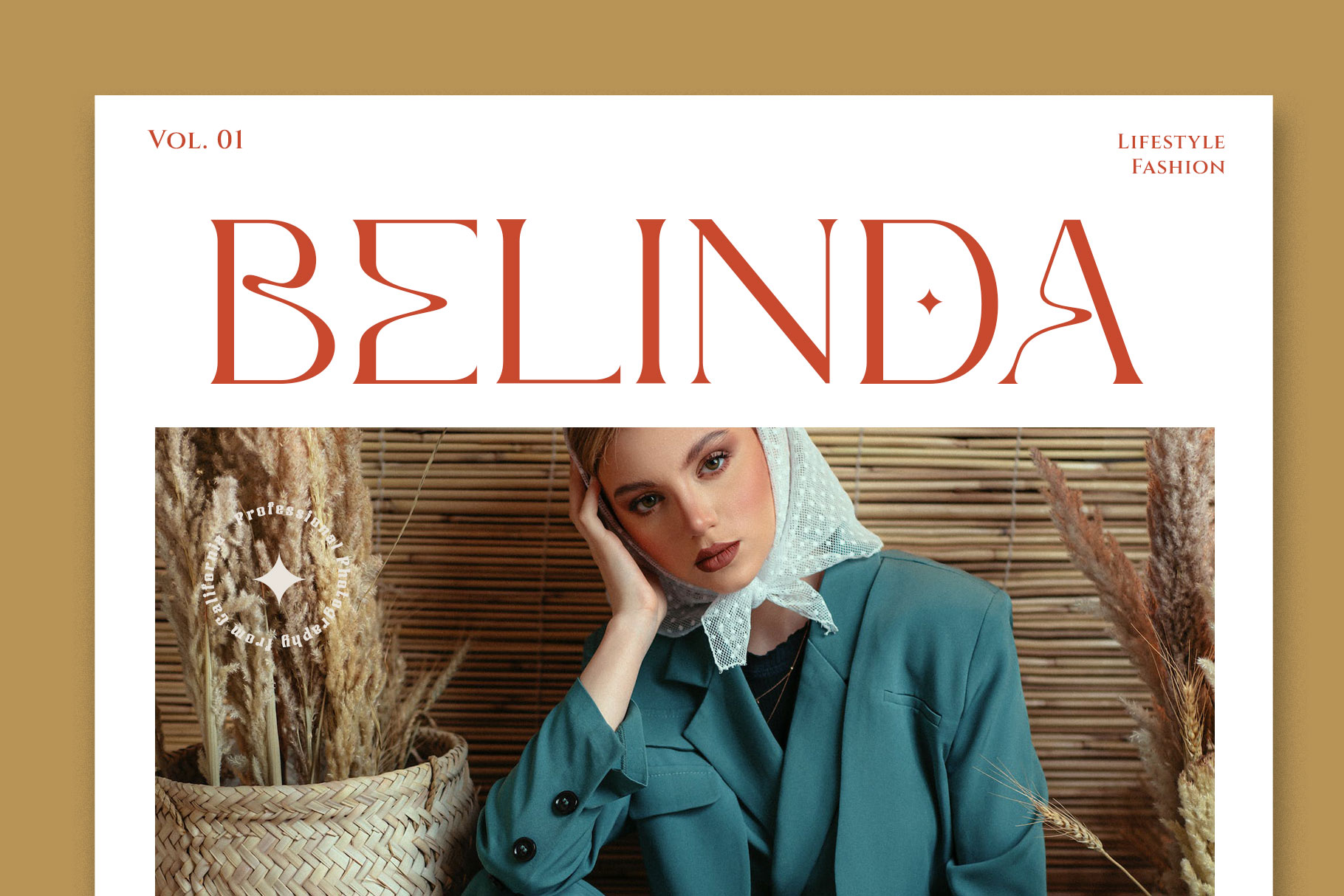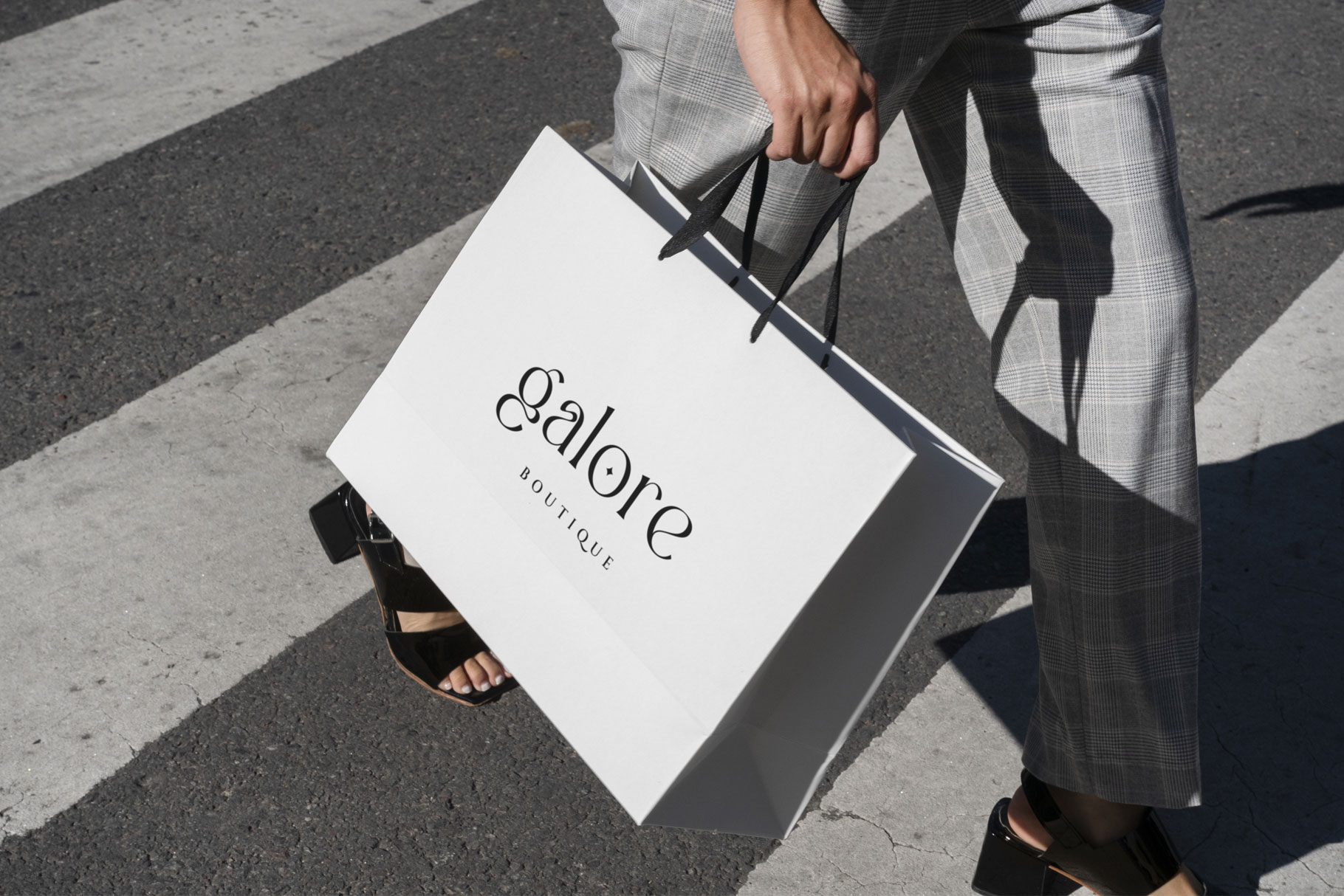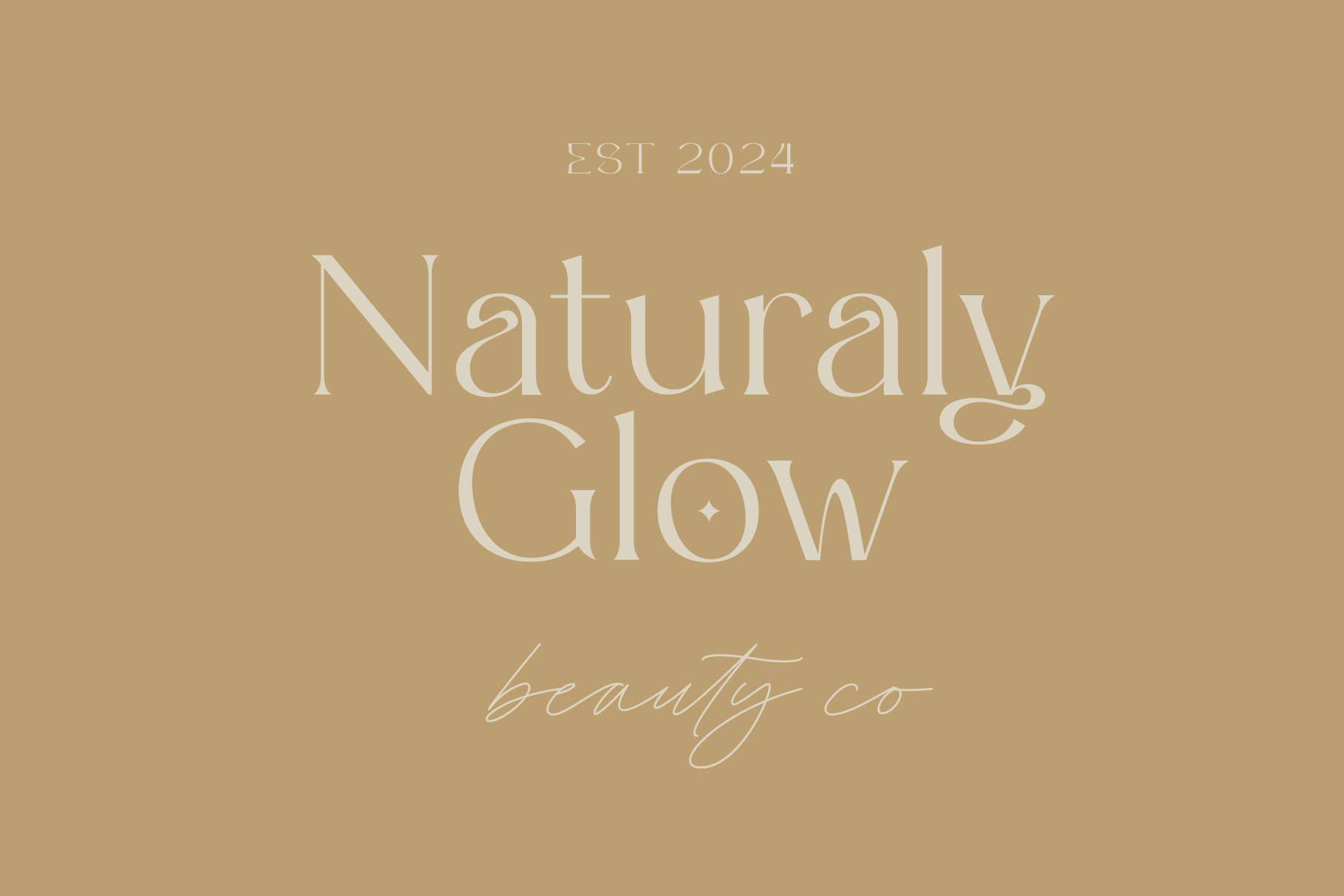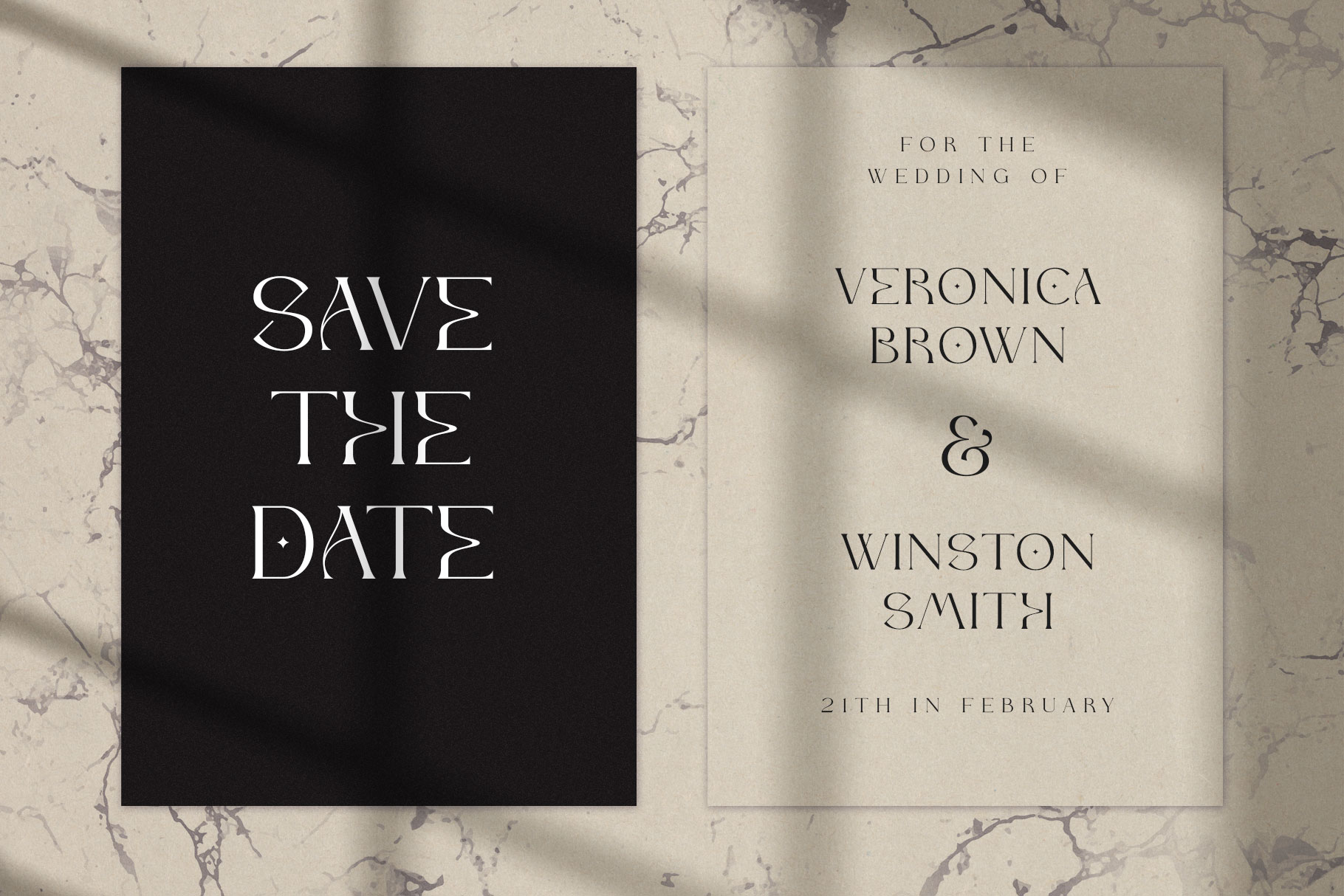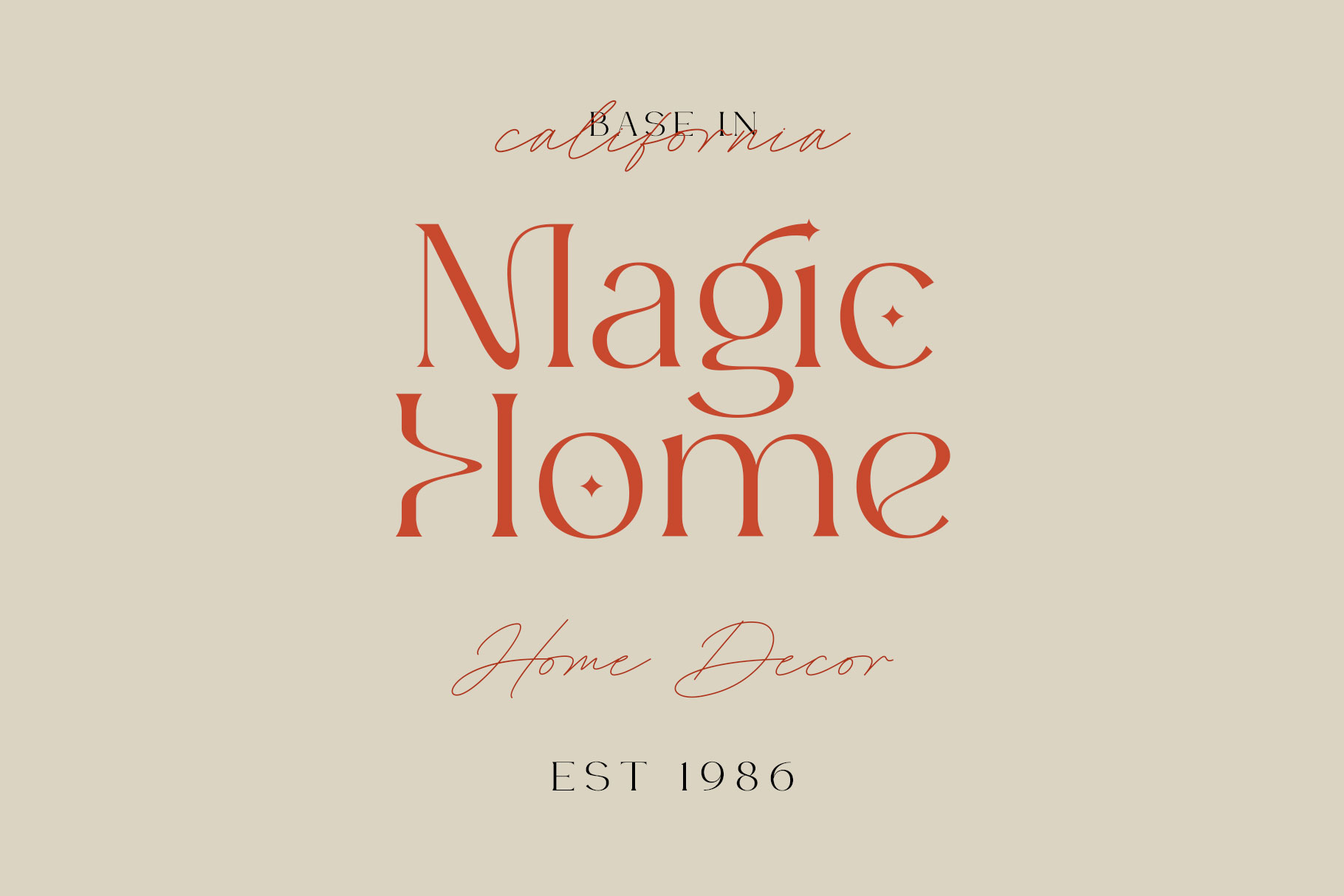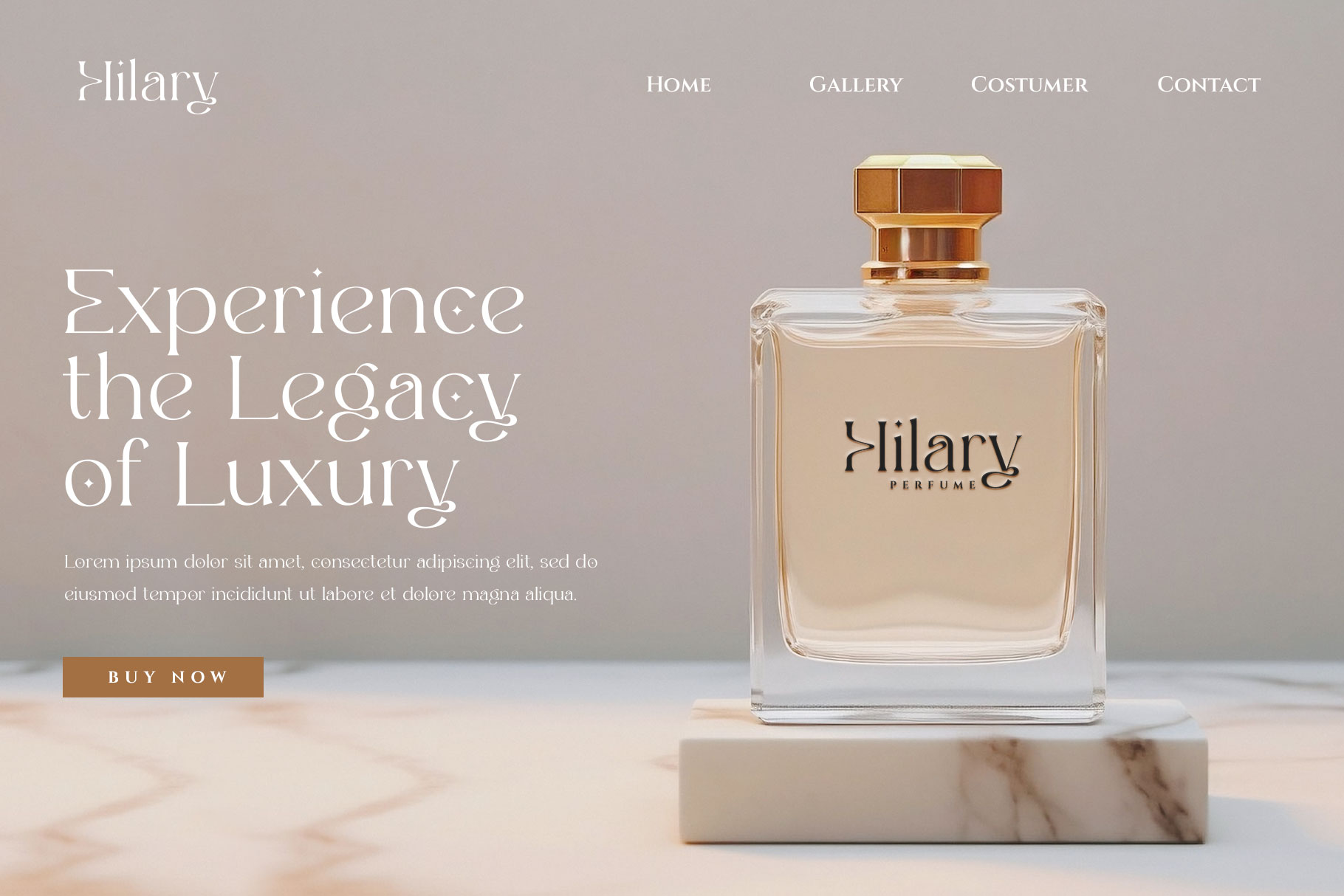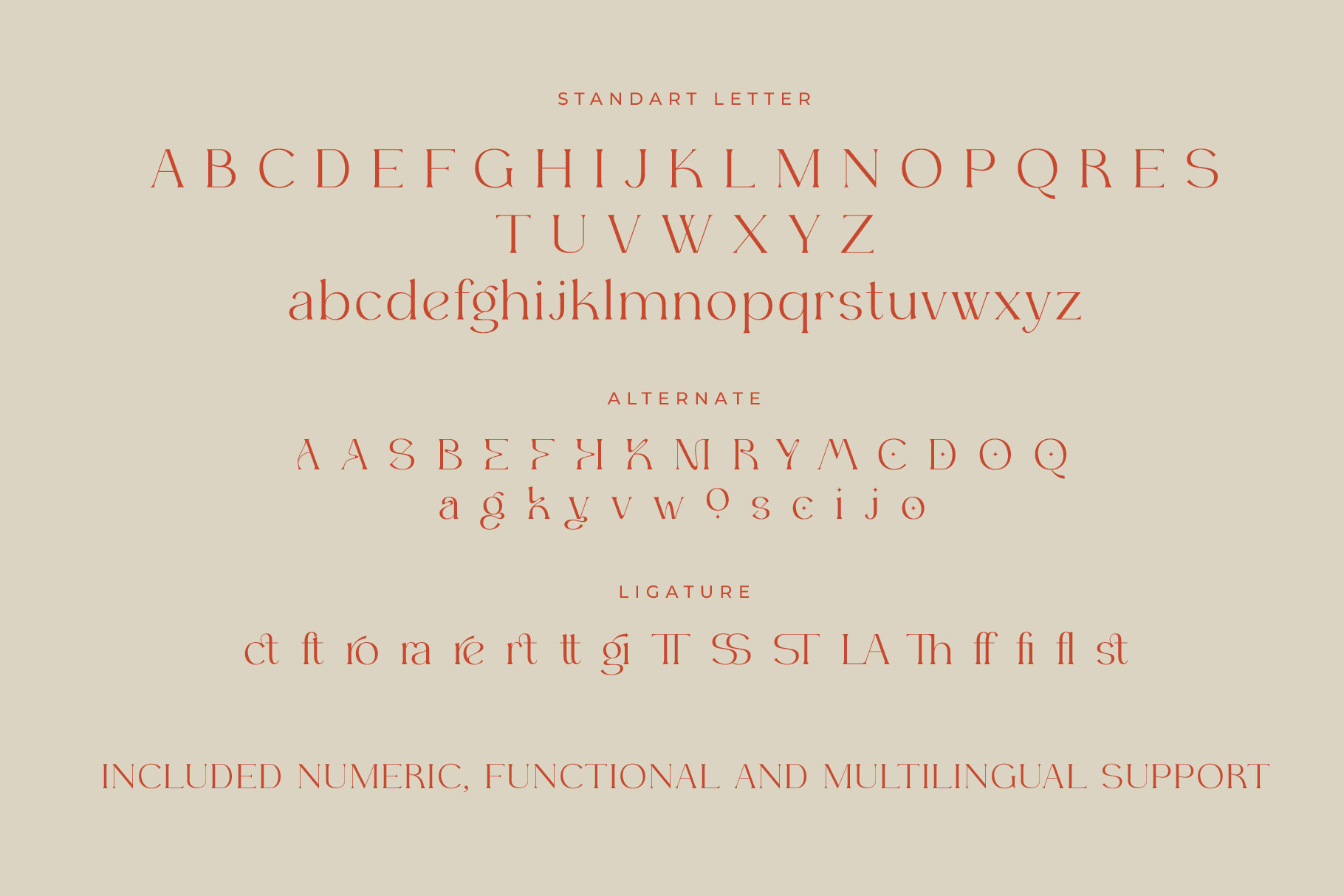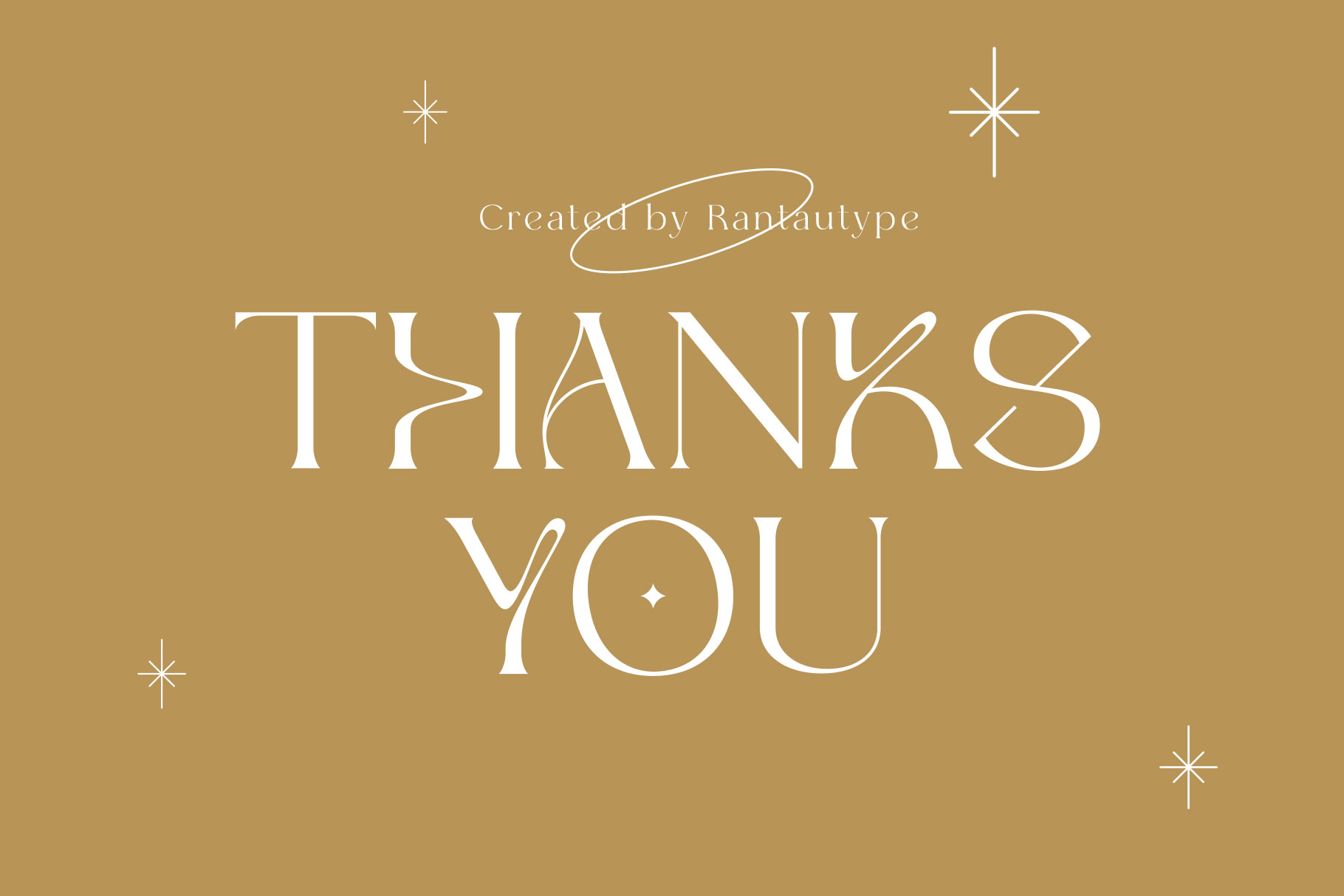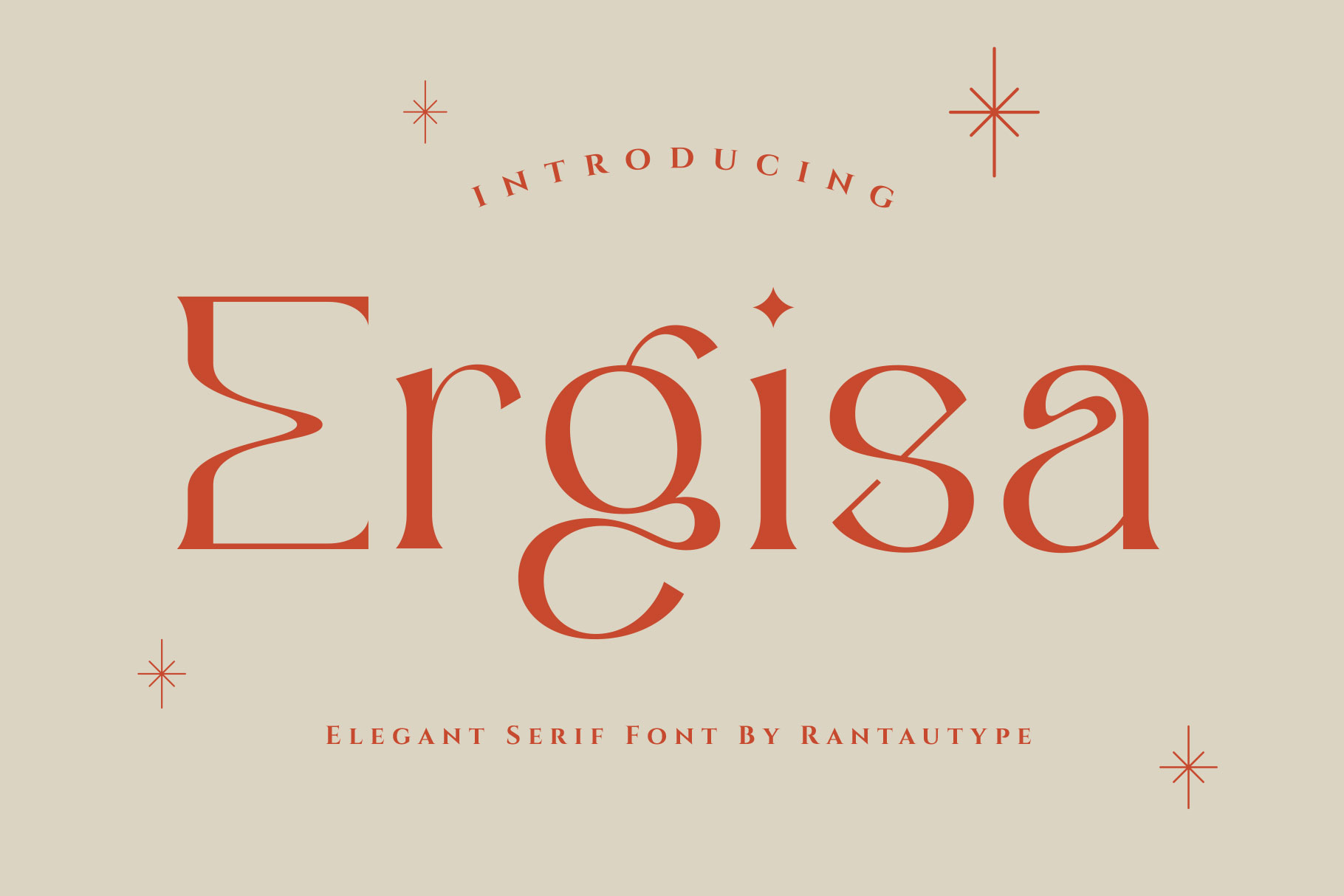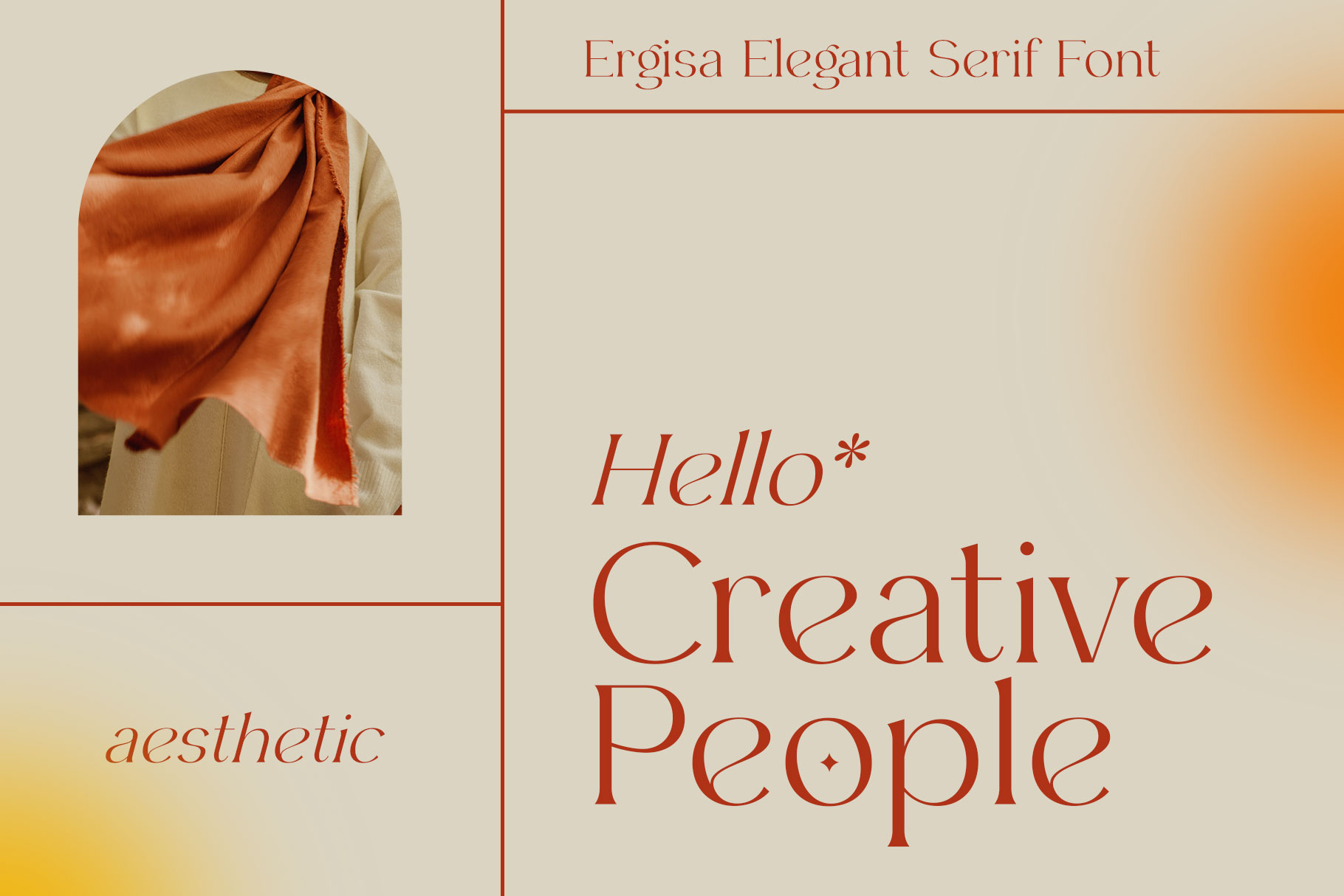
Ergisa Elegant Serif Font
Experience elegancy in a visual form for your design with the Ergisa font. Inspired by elegant brand and beautiful concept, targeting a luxury-forward mentality with subtle curves to make it elegant and fashionable. We love how alternate it look elegant and minimalist. Ergisa come with alternate, ligature and already support multingual character.
Ergisa is a beautiful choice for any creative endeavor, chic, lifestyle design such as logos, title, watermark on photography, cover, branding, display and magazine, wedding event, corporate brand, quotes, album cover, business card, business project and many other design project. Ergisa here to elevate you workl!!!